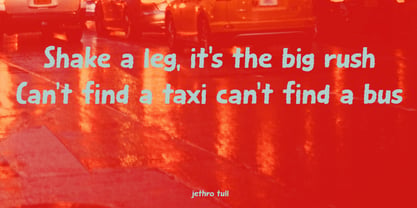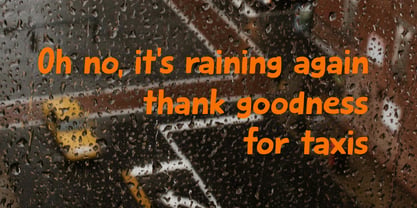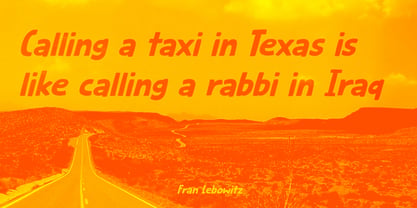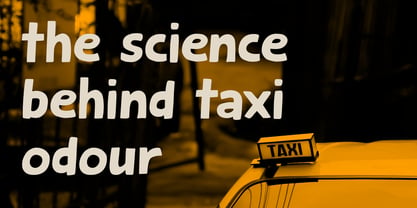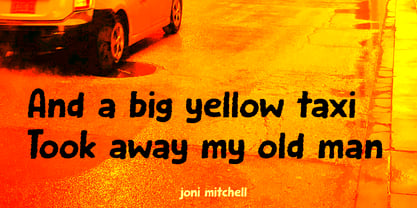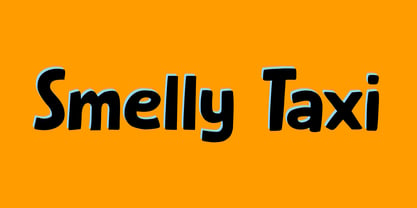
Smelly Taxi Pro
by Hanoded
The Smelly Taxi Pro Font Family was designed by David Kerkhoff and published by Hanoded. Smelly Taxi Pro contains 3 styles. More about this family
I don’t often use taxis, as I live in a very small village and have a bicycle and a car. When I guide tours abroad, however, I sometimes use taxis and it always surprises me that they seem to have their own distinct ‘taxi smell’. It’s like a mixture of stale beer, cigarette smoke, oil and vinyl.
Smelly Taxi is a handmade font. It comes in a smooth and a rough style.
Hanoded is run by Dutchman David Kerkhoff. His fonts are a mishmash of styles, as he just creates whatever pops into his head. You will find a lot of brush fonts in his collection, as his favourite tools are brushes and Chinese ink, with cartoon style fonts and script fonts complementing his repertoire. Aside from making fonts, David occasionally guides tours in far-flung places, renovates his '30's house and tries reasoning with his wife and (teenage) kids. Not an easy task!